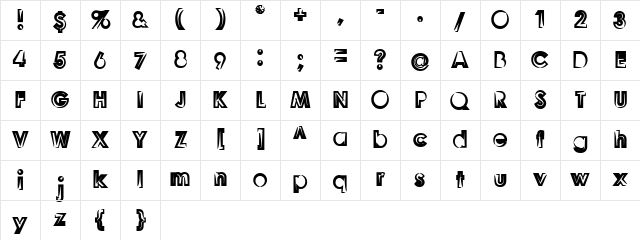
Goonberry Regular Goonberry Regular
Style: Goonberry Regular
Foundry: ￿Emily Finta
Designer: ￿Emily Finta
Complete Goonberry Regular glyph index. Displaying only characters natively supported by Goonberry Regular font.
Design Context for Goonberry Regular
Goonberry Regular is a composed and adaptable typeface that performs quietly and consistently across a wide range of design contexts.